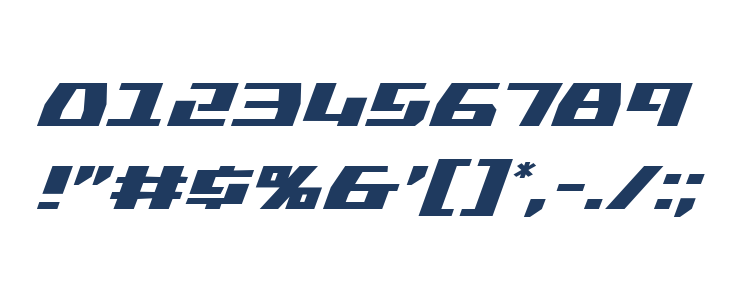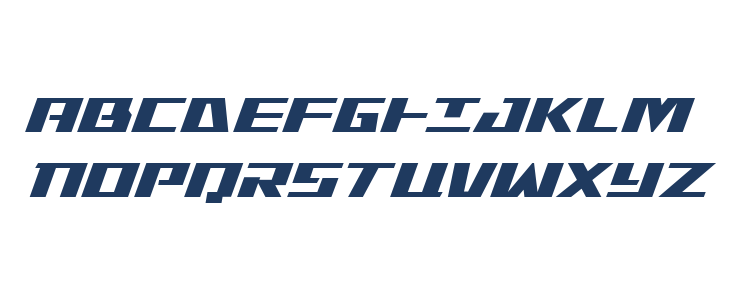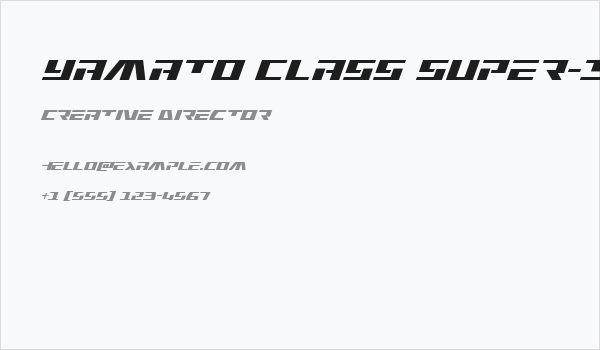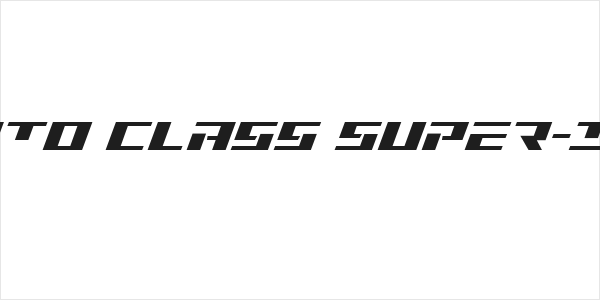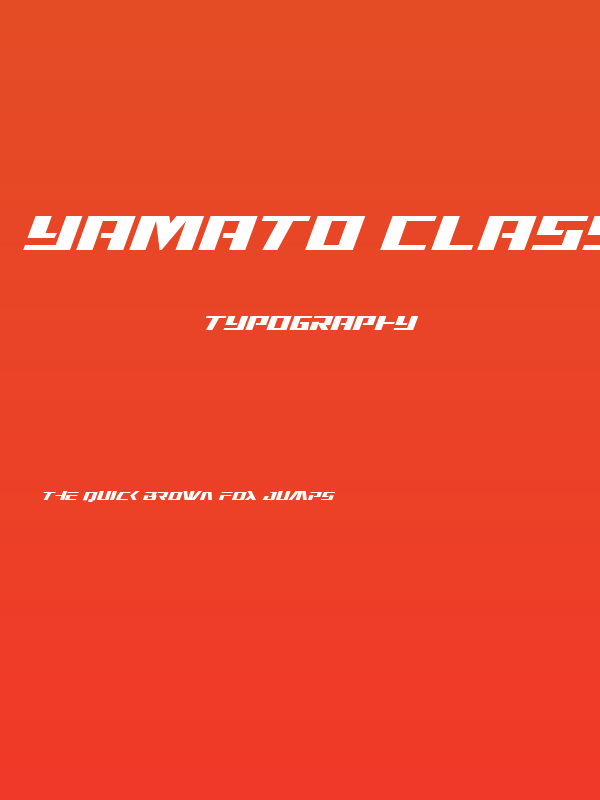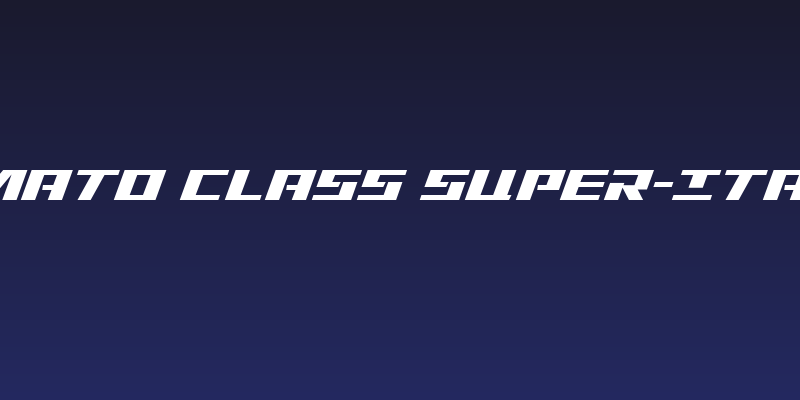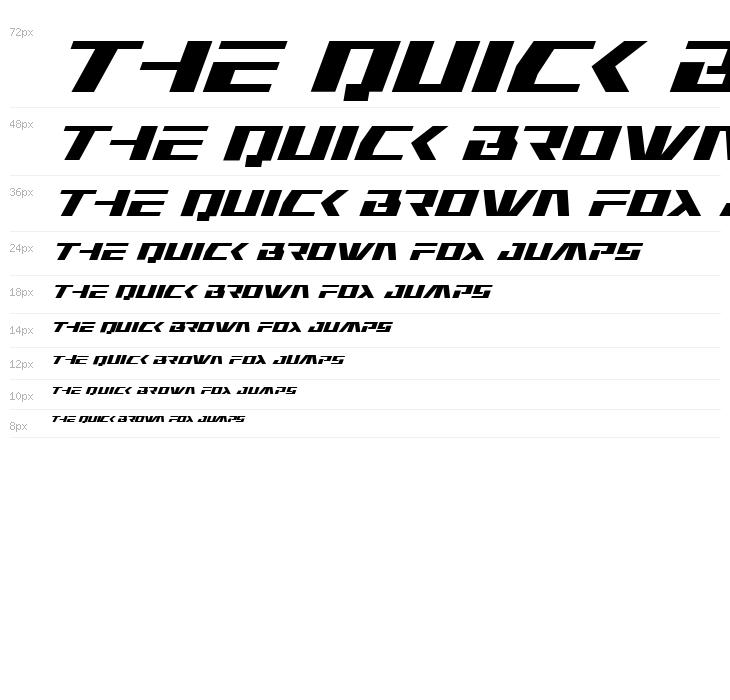
Yamato Class Super-Italic Font
Yamato Class Super-Italic Description
A geometric, angular typeface with a strong italic slant, featuring sharp edges and a futuristic, mechanical appearance. The characters are bold and wide, with consistent stroke thickness and minimal contrast. The style is highly stylized and decorative, evoking a sense of speed and technology.
| Overall Style | Futuristic, Decorative |
| Proposed Projects | Video game titles, sci-fi movie posters, technology branding, esports logos, event flyers. |